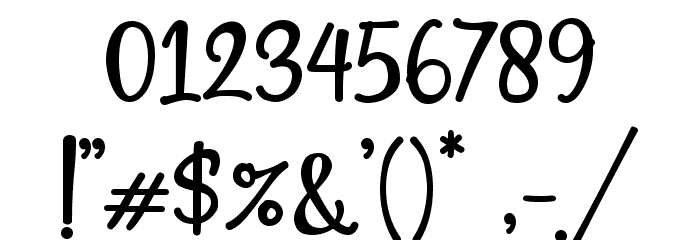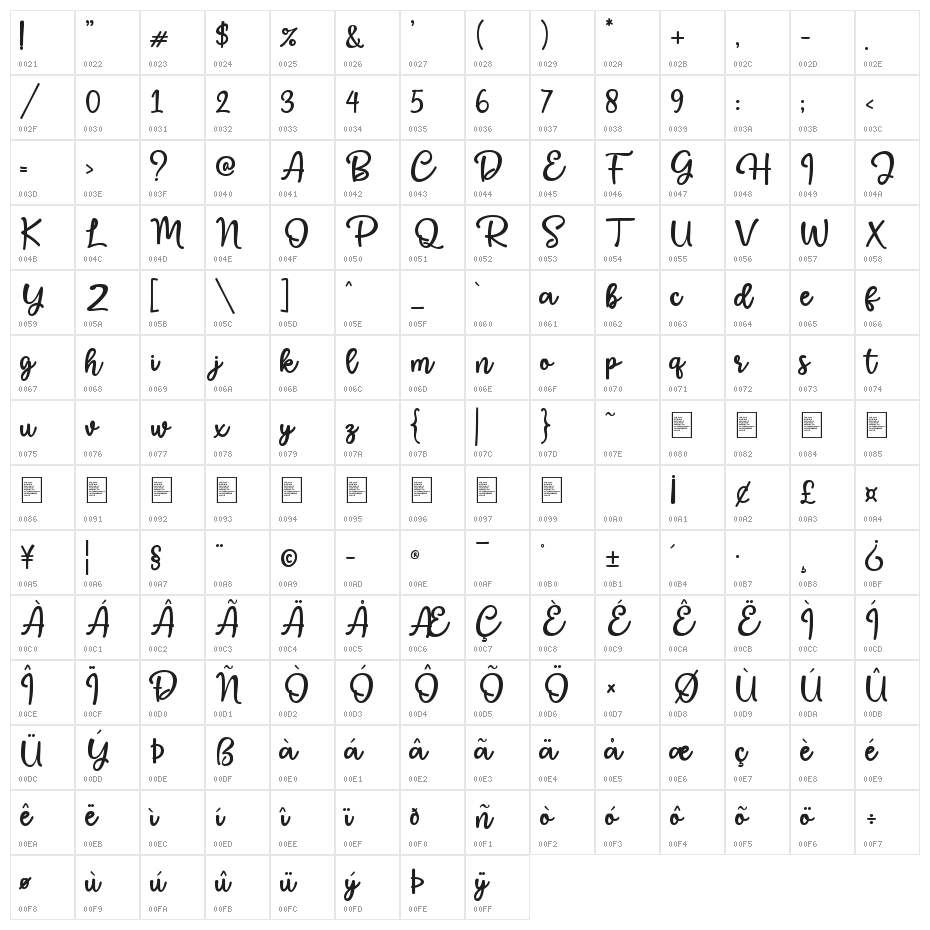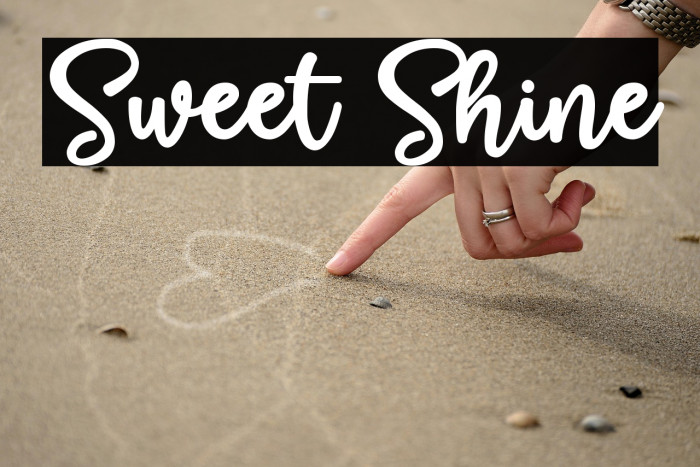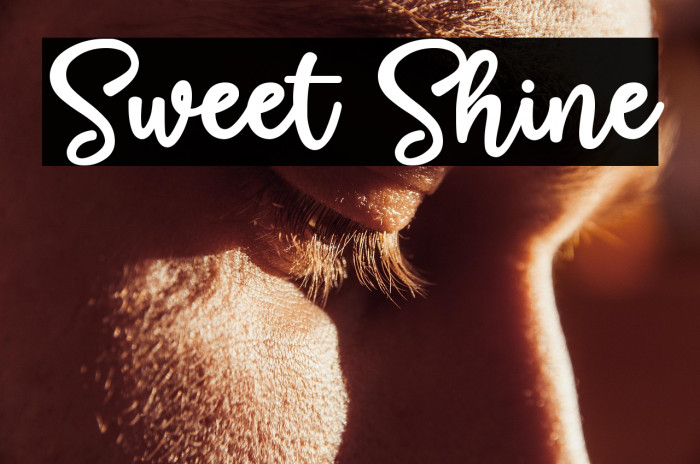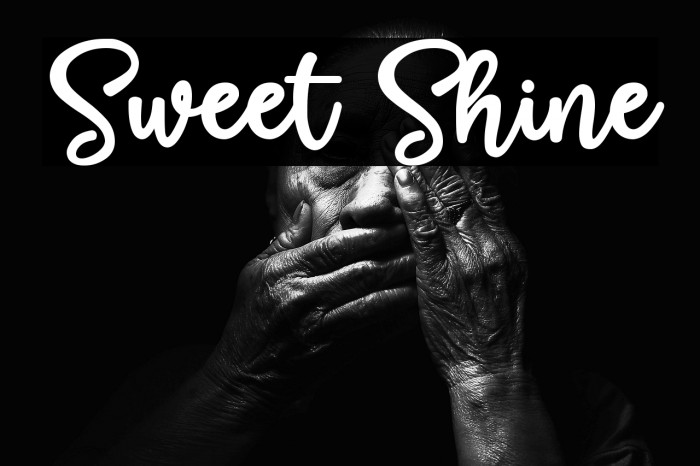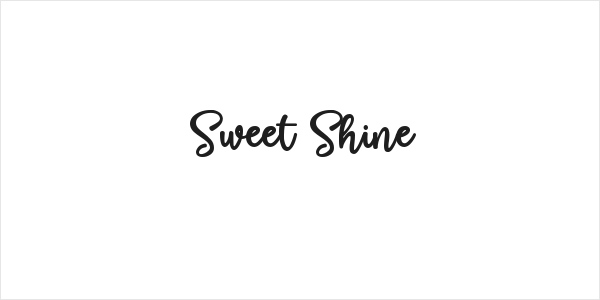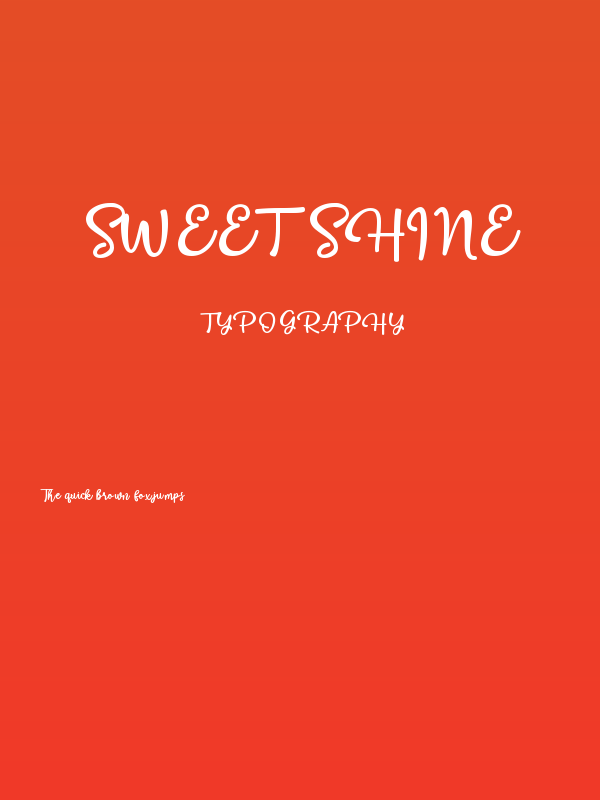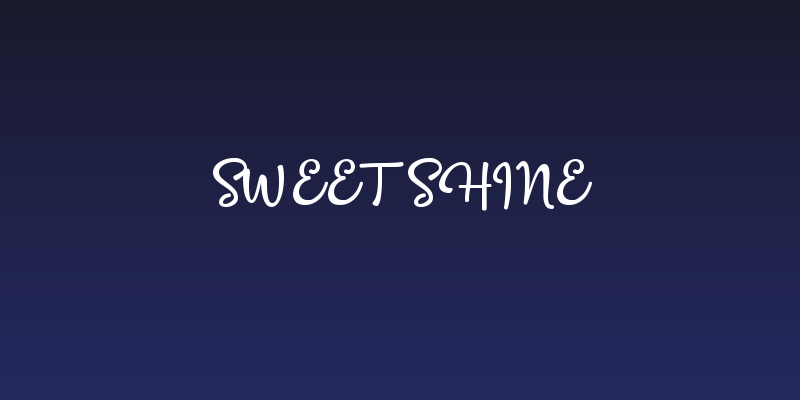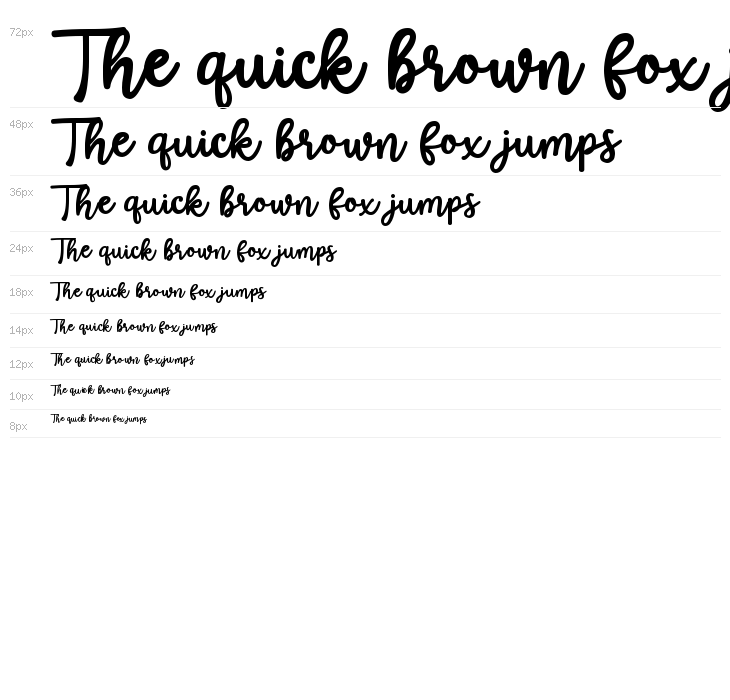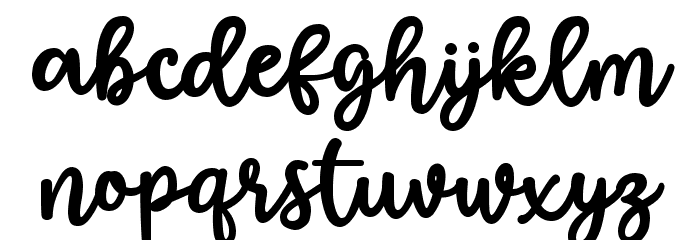
Sweet Shine Font
Sweet Shine Description
This font exudes a playful and whimsical charm, characterized by its flowing script style. The letters are connected in a smooth, cursive manner, giving it a handwritten feel. The uppercase letters maintain a consistent height, while the lowercase letters feature a slight slant, enhancing the casual and friendly appearance. The numerals and special characters are designed to match the overall style, ensuring a cohesive look. The strokes are moderately thick, providing good readability while maintaining the decorative essence. This font is ideal for projects that require a personal touch, such as invitations, greeting cards, or branding materials that aim to convey warmth and approachability.